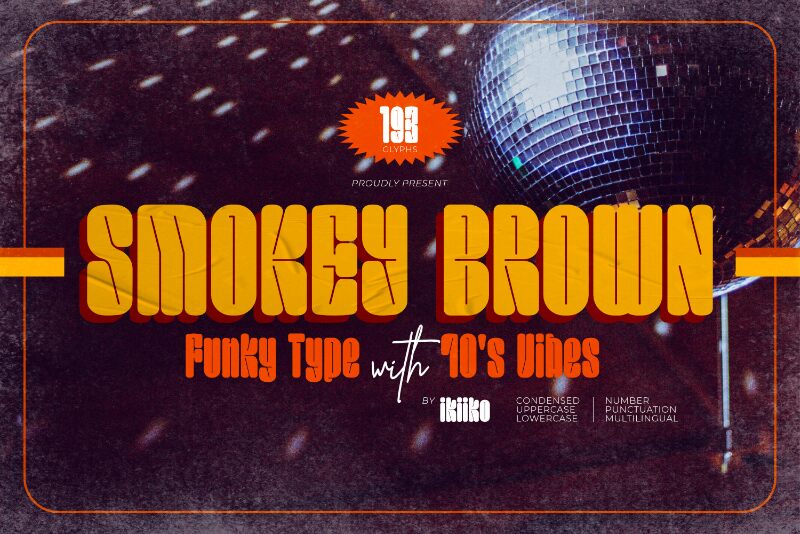
Smokey Brown font by Ikiiko Type is a free groovy font that recalls the heady atmosphere of the ’70s. If you are among those who admire the font style, you will absolutely recognize it here. This decorative typeface uses all its letters to celebrate it, but its sans-serif anatomy makes it both energetic and readable. Walk through the past and embrace the era with both lowercase and uppercase letters that have nothing to hide.
Because the 1970s were all about empowerment, the latter is bold in a way that instantly catches the eye of consumers. They have a solid body that with modernity can be used for both digital and printed purposes, designing logos, posters, icons, and other branding designs. Enjoy a trip down memory lane with the free version of Smokey Brown.